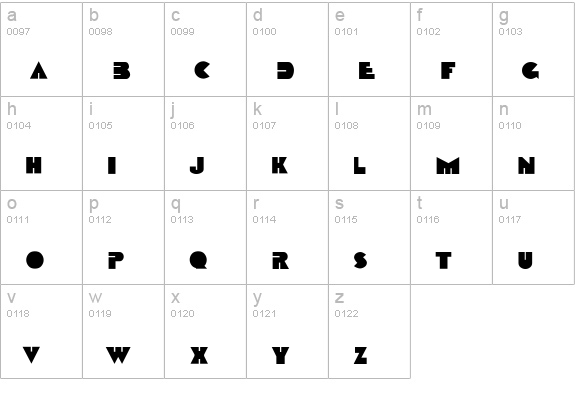
Sharktooth Font Details
Sharktooth font is a bold and powerful typeface that is sure to make a statement with its sharp and edgy design. This font is perfect for adding a touch of fierceness to any project, whether it be a logo, headline, or poster. With its jagged edges and strong lines, Sharktooth font exudes a sense of strength and confidence. It is reminiscent of the teeth of a shark, ready to take on any challenge. Its unique and distinct look will captivate your audience and leave a lasting impression. One of the best things about Sharktooth font is that it is available for free download at FontsMarket.com. This means you can easily access and use this stunning font without worrying about any extra costs. Whether you are a professional designer or a casual user, this font offers accessibility and convenience. The versatility of Sharktooth font is another reason why it is a must-have in your font collection. It can be used in a variety of design projects, from print to digital, and it works well with different styles and themes. Its bold and commanding presence will instantly elevate your designs and make them stand out from the crowd. So why wait? Get your hands on Sharktooth font today and unleash its power in your creative endeavors. Its free availability at FontsMarket.com ensures that you can start using this font right away, without any hassle. Don't miss out on the opportunity to add this dynamic and captivating font to your toolkit.